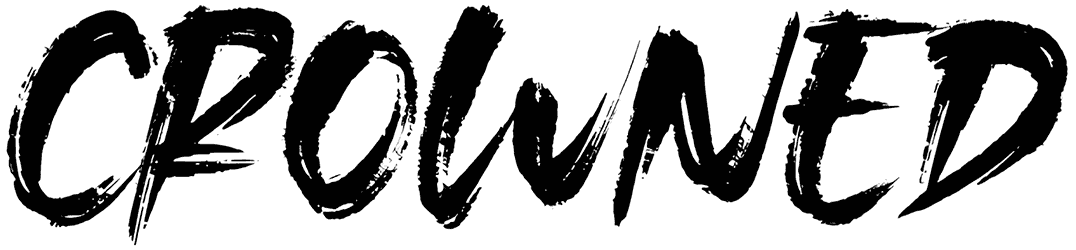
Crown Horror Font
Crown Horror rises like lettering scratched into an old warning sign. Its towering, uneven strokes narrow into sharp points, while rough speckled texture and warped contours make the characters feel aged, handmade, and slightly unstable. The extreme height gives each word an eerie, skeletal presence without relying on elaborate gothic ornament.
Use this horror font for horror posters, haunted-house graphics, thriller covers, Halloween packaging, dark game titles, or eerie apparel. Stretch short words across shadowy photography, distressed paper, or foggy backgrounds; bone white, black, crimson, and sickly green work naturally with its unsettling silhouette.